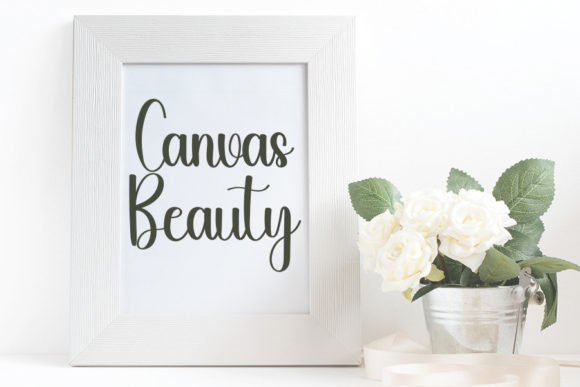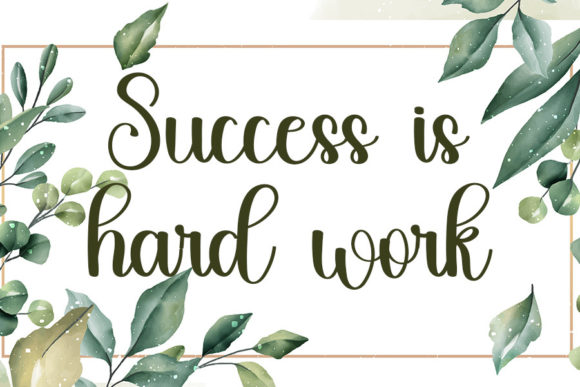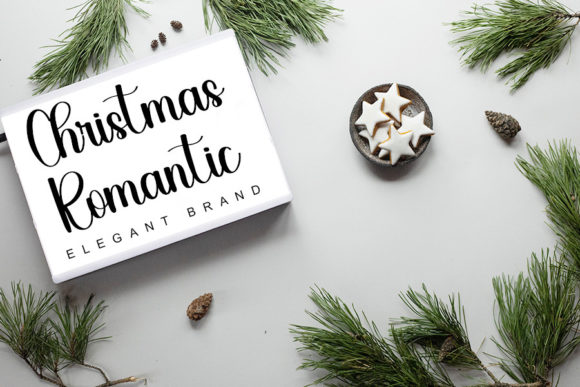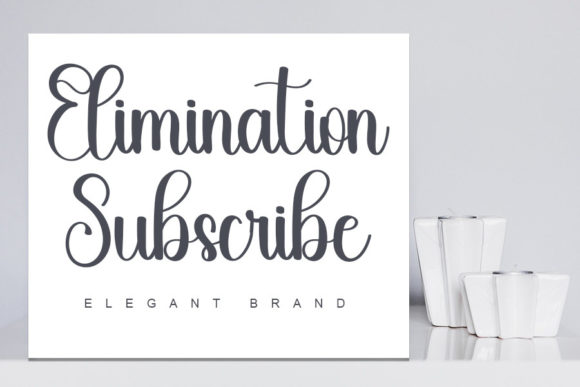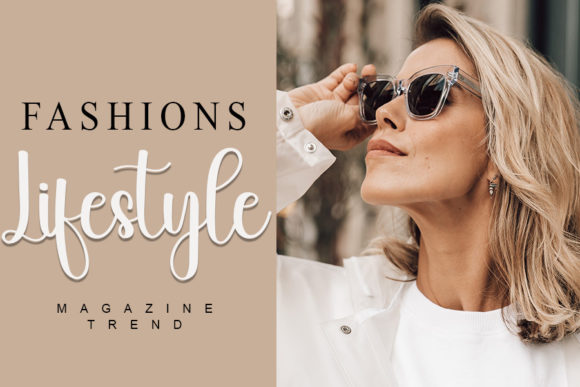
Introduction to Sayidina Font
Do you remember the moment when you stumbled upon the perfect font for your project? The one that makes your design stand out and leaves a lasting impression? For designers, finding that special font can be a game-changer. It’s the difference between a good design and an exceptional one. Today, we’re excited to introduce you to Sayidina Font, a high-quality, handwritten font that’s sure to elevate your creative project.
As a valuable design resource, Sayidina Font is perfect for designers looking to add a touch of elegance and sophistication to their work. With its unique, handwritten style, it’s ideal for creating eye-catching titles, quotes, and other design elements. And the best part? Sayidina Font is PUA encoded, making it easy to access all its glyphs and swashes, giving you endless possibilities for creative expression.
Key Features of Sayidina Font
- High-quality design resource suitable for creative projects, including logos, branding, and digital art.
- Unique, hand-drawn design with a transparent background, providing flexibility for designers to create visually appealing compositions.
- Perfect for designers seeking a distinctive, high-quality font to elevate their creative project.
Honest Review: Sayidina Font
- ✨ High quality: The Sayidina Font is beautifully crafted, with intricate details and a professional finish.
- ✨ Unique style: The font’s unique style and aesthetic make it perfect for designers looking to add a touch of elegance to their work.
- ✨ Transparent background: The font’s transparent background makes it easy to use as a design element, without worrying about any unwanted background noise.
- ⚠️ Limited font sizes: The Sayidina Font only comes in a few font sizes, which may limit its usability in certain situations.
- ⚠️ No italics or bold options: The font does not have any italics or bold options, which may be a drawback for designers who like to experiment with different styles.
Overall, the Sayidina Font is a great resource for designers looking for a high-quality, unique font for their creative projects. While it has some limitations, its high quality and transparent background make it well worth considering for any design project.
Tips for Getting the Most Out of Sayidina Font
For optimal results, use Sayidina Font on a transparent background to minimize visual distractions. Experiment with different font sizes and colors to create a visually appealing design. This free download is perfect for creative projects, so don’t hesitate to explore its full potential.
Common Use Cases for Sayidina Font
Sayidina Font is ideal for designing logos, brochures, and business cards. Its unique style makes it a great choice for creative projects, such as infographics, posters, and social media graphics.